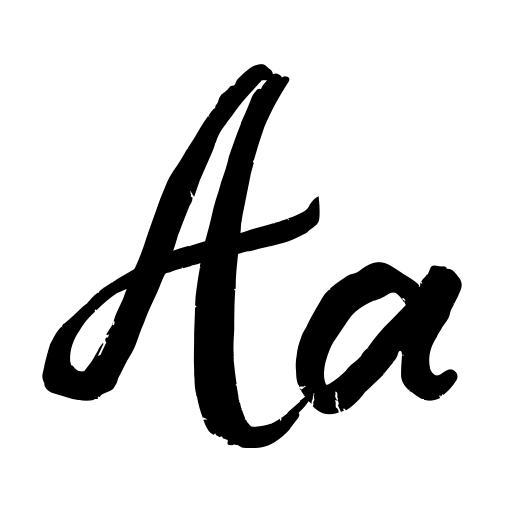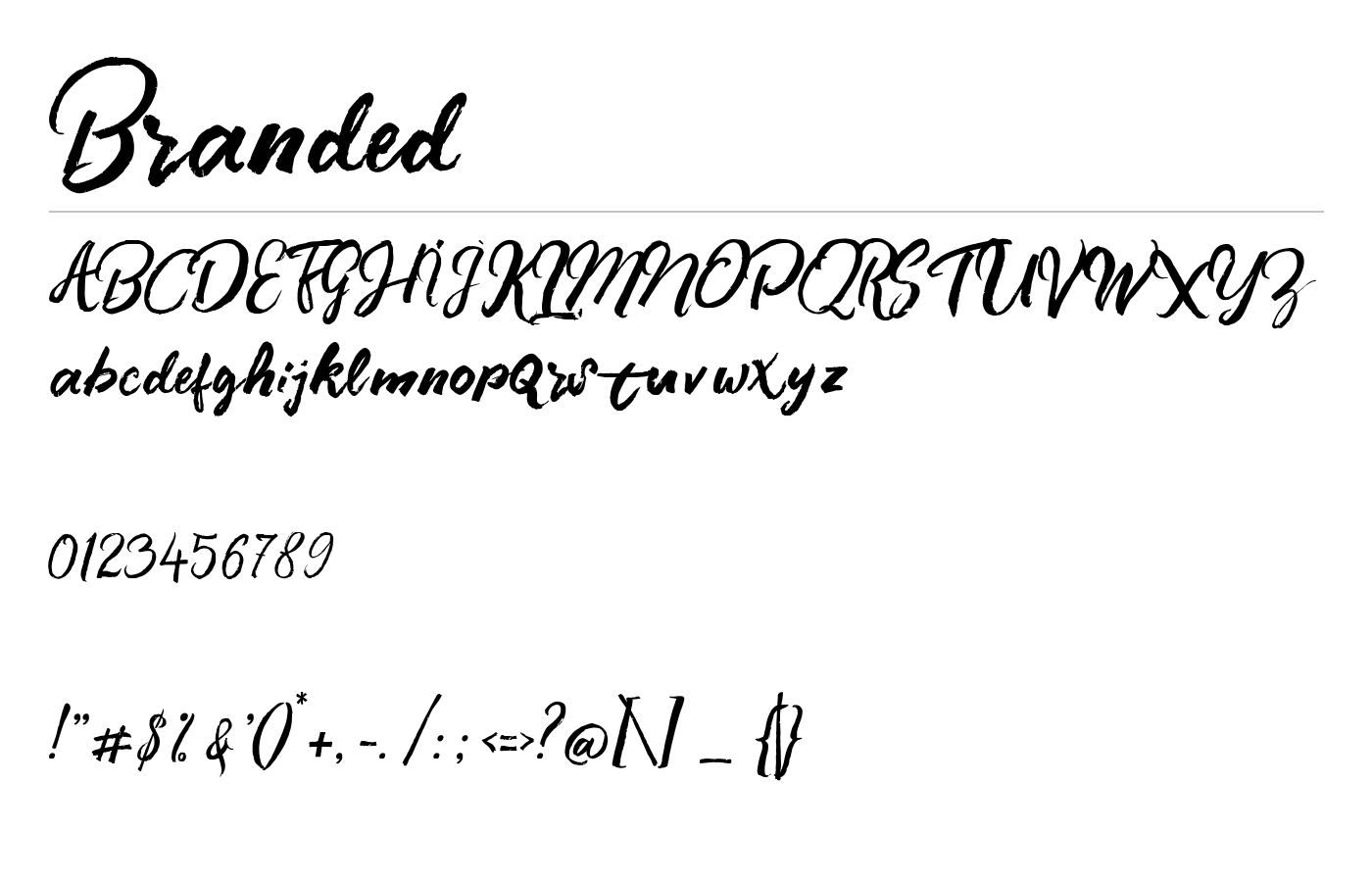
Branded Font is a lively script typeface that features a hand-painted, brushstroke style with dynamic, irregular lines and a moderate contrast between thick and thin strokes. Its casual yet elegant appearance, combining uppercase and lowercase characters with flowing, connected forms, makes it ideal for creative branding, invitations, and expressive headlines that need a personal, artistic touch. This font works well where a spirited, handcrafted feel is desired, adding character and warmth to designs.
Branded Font
About Branded Font